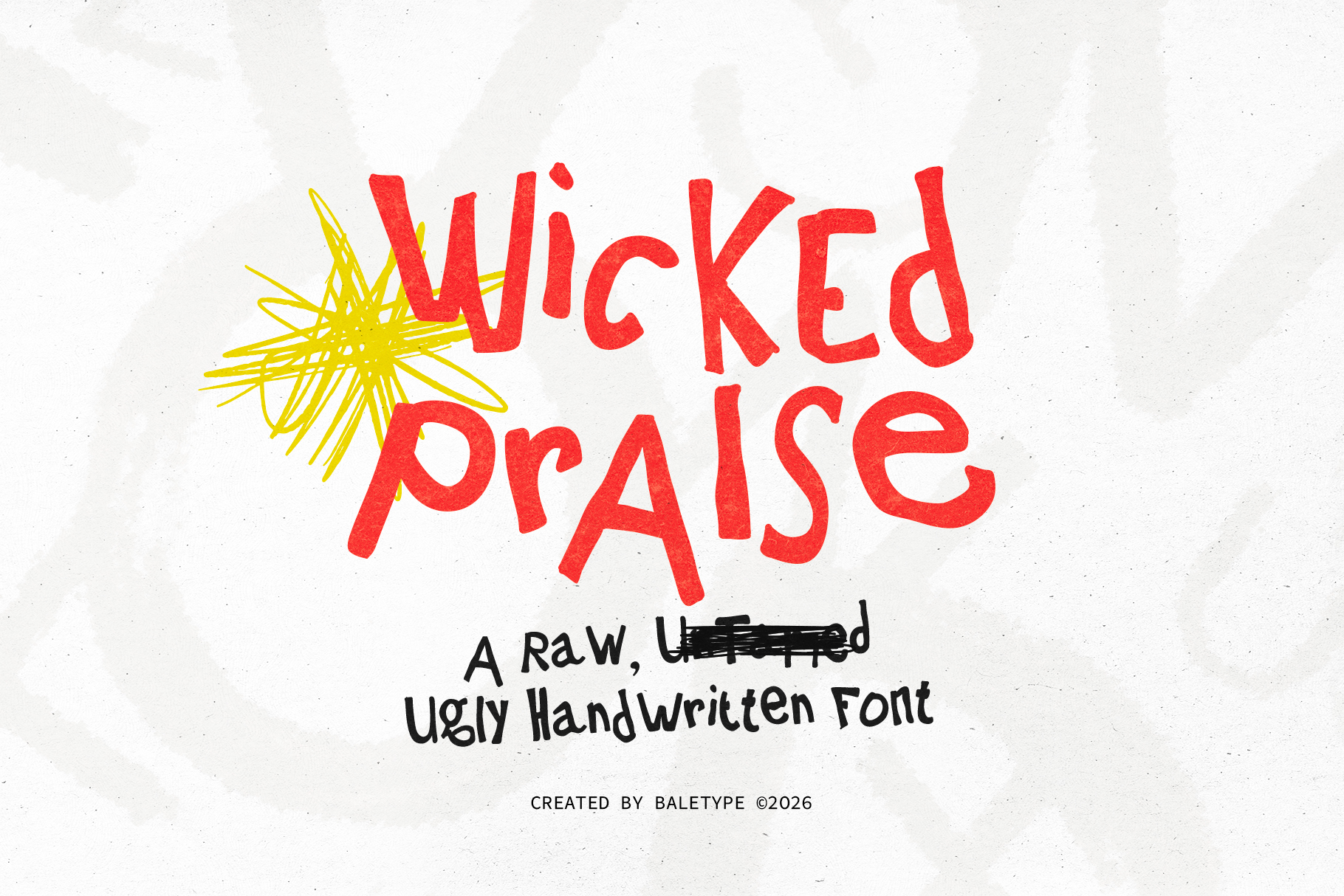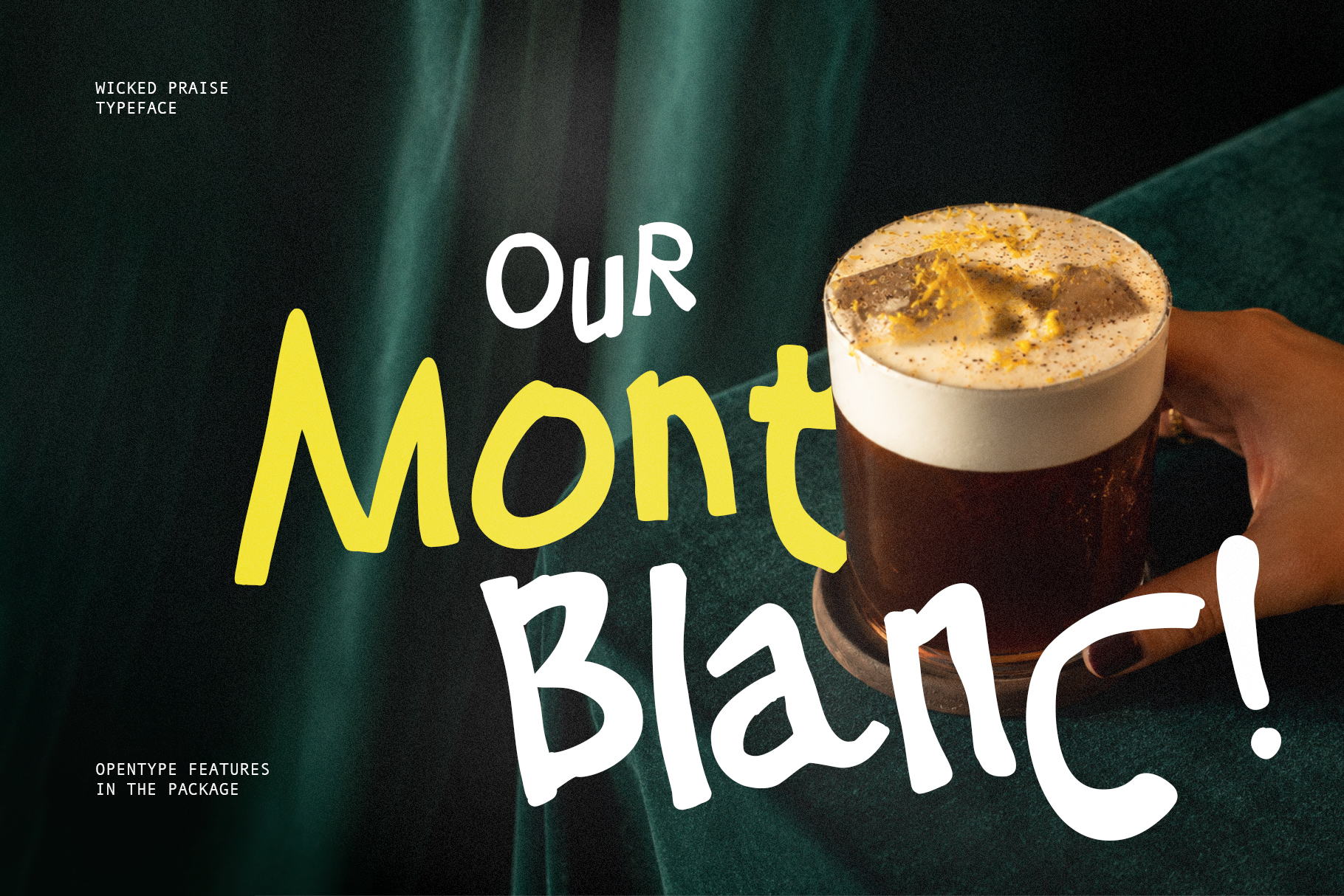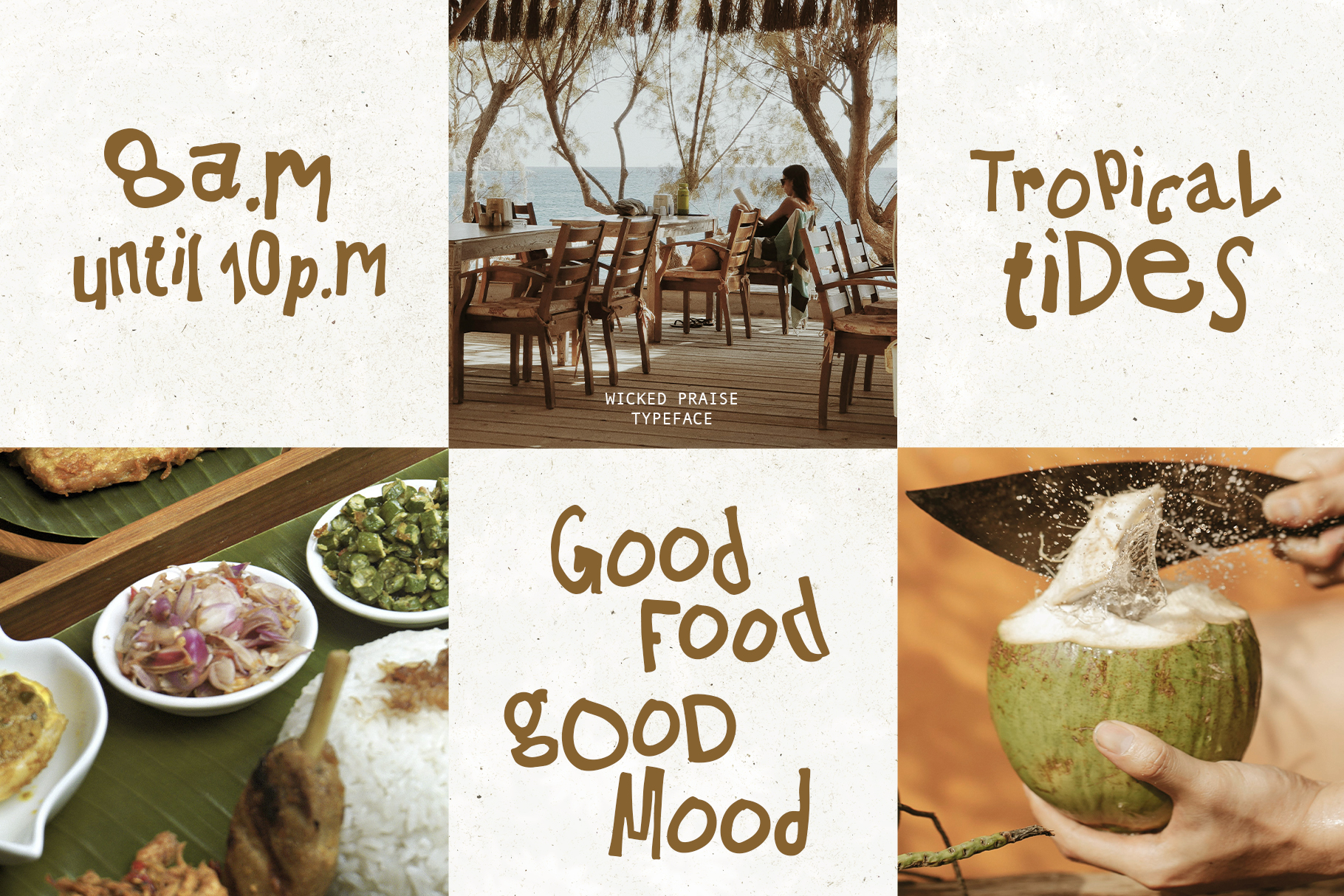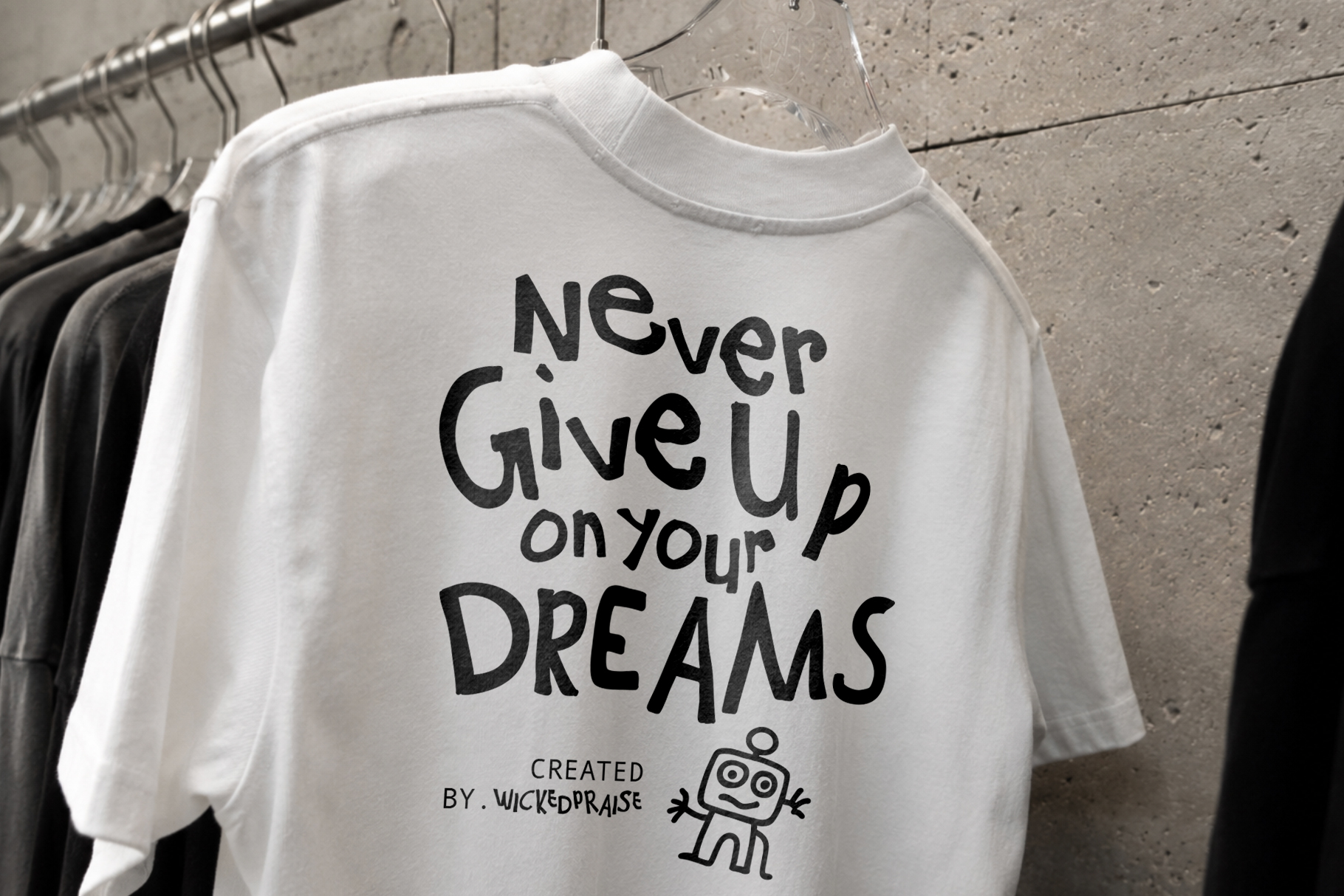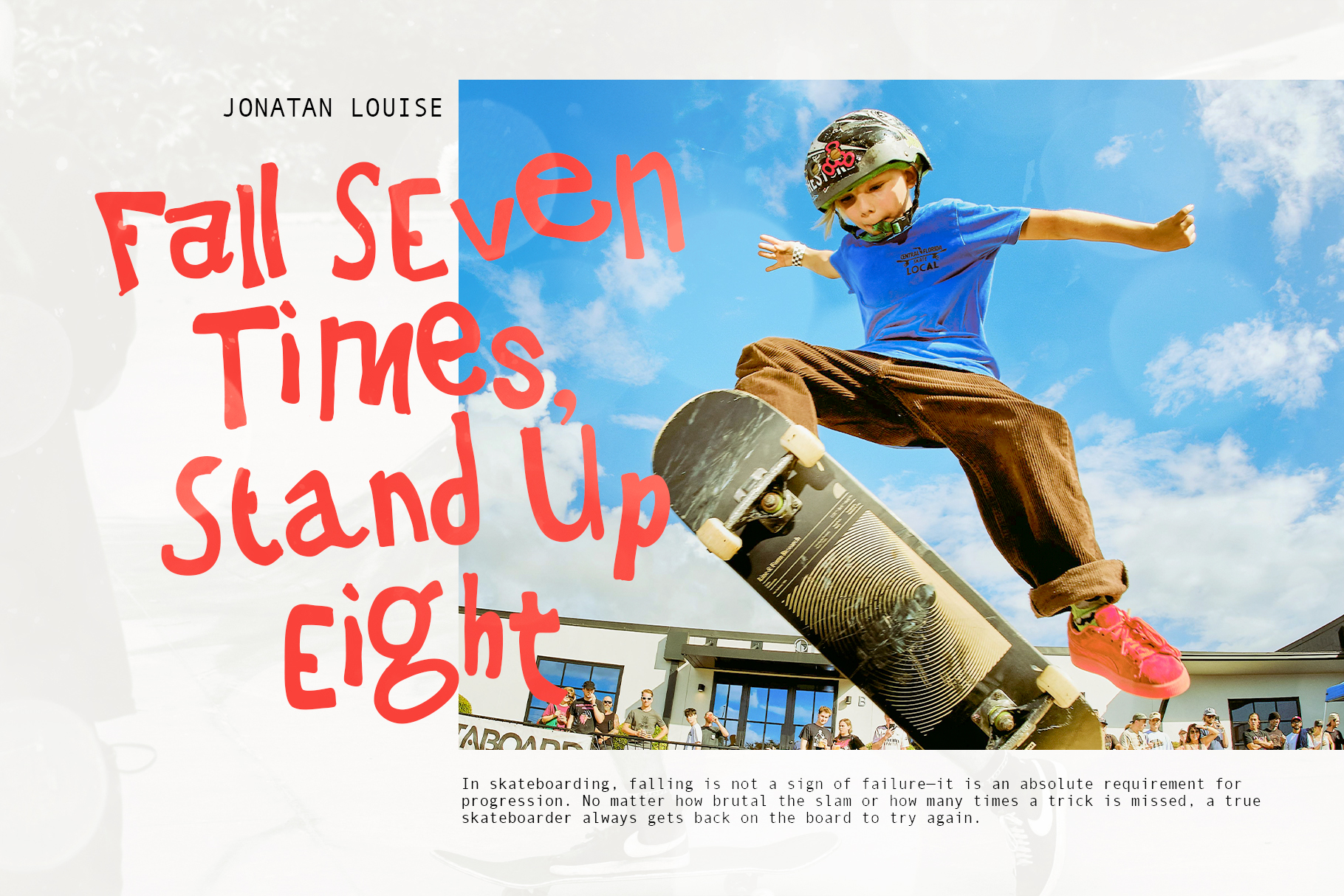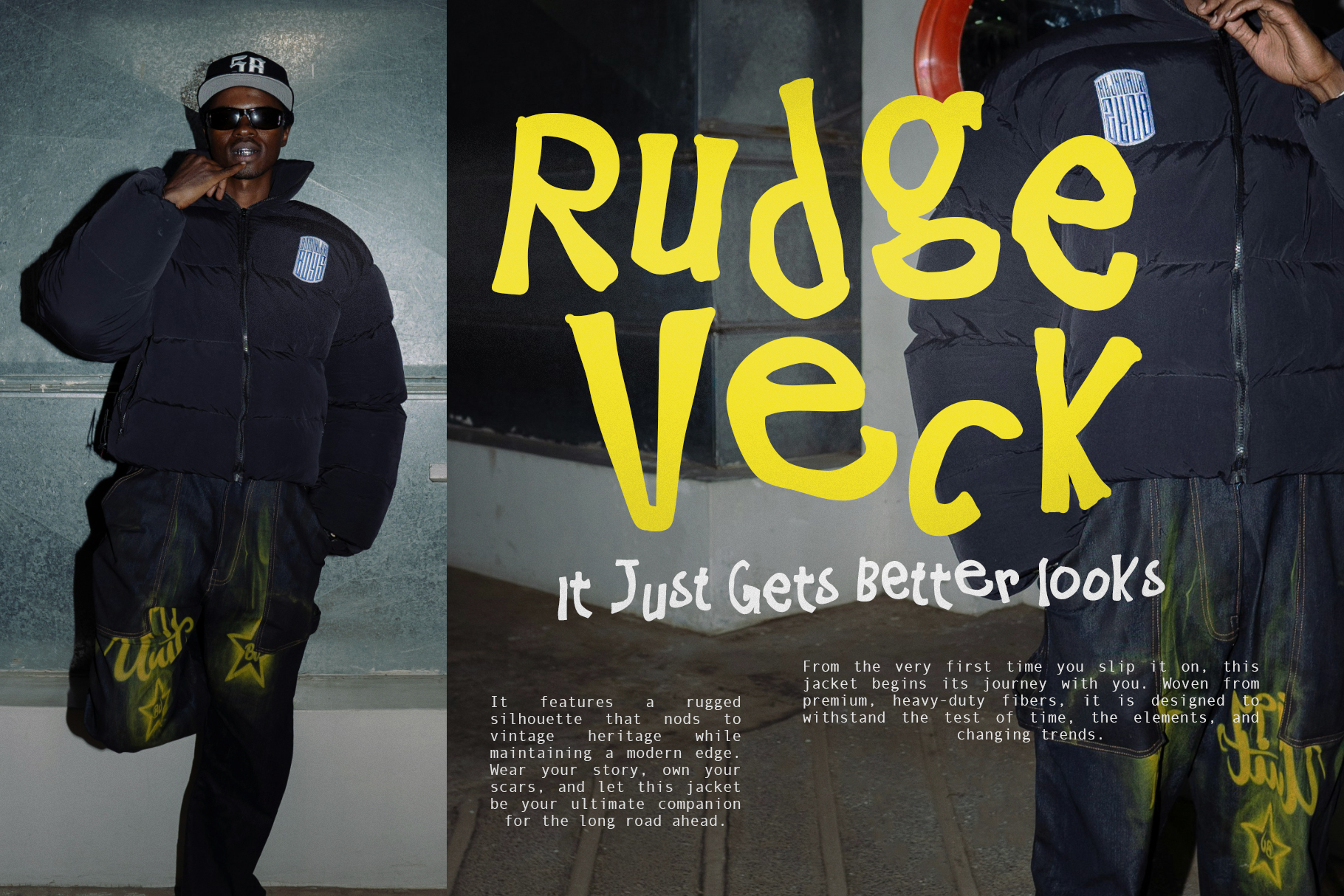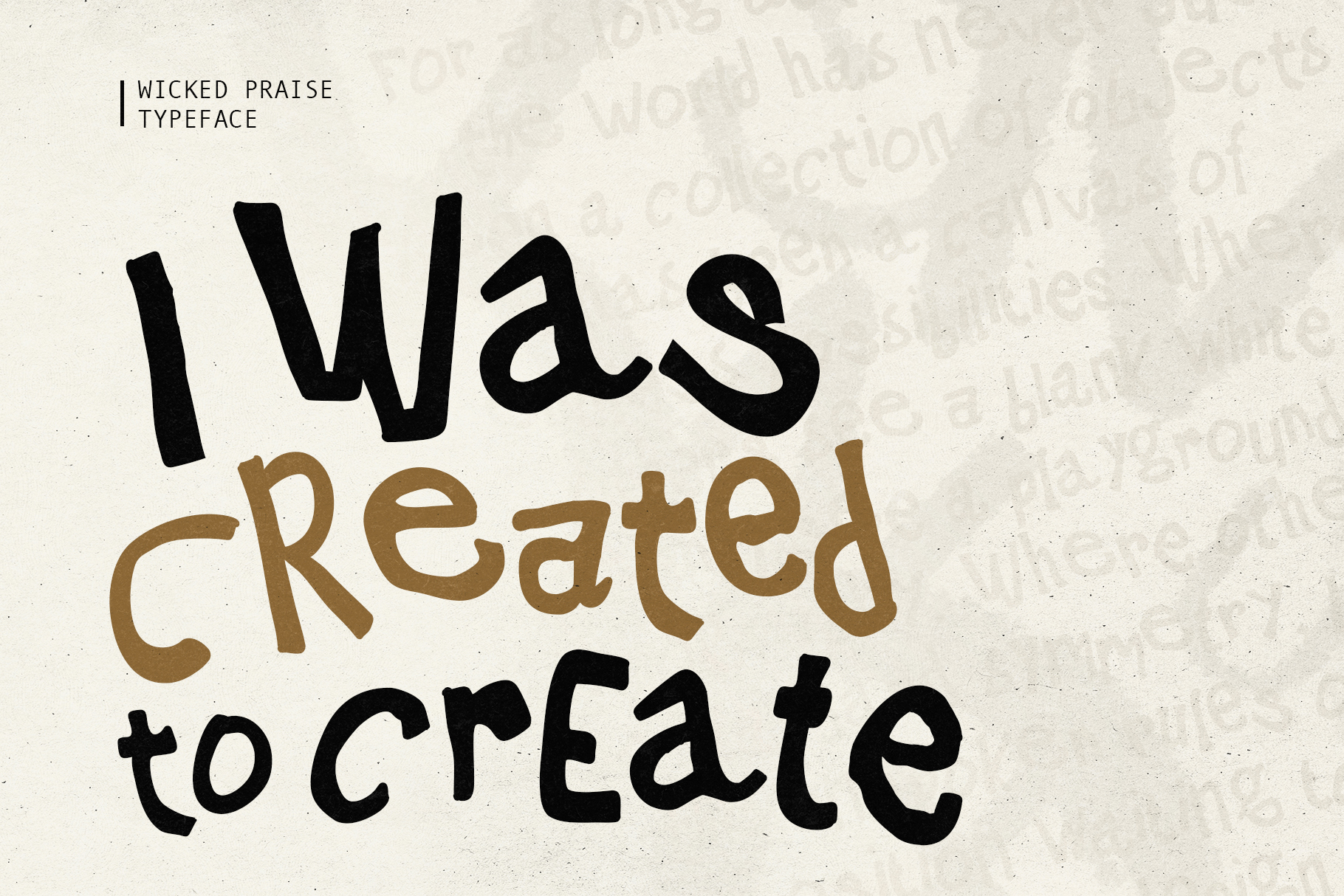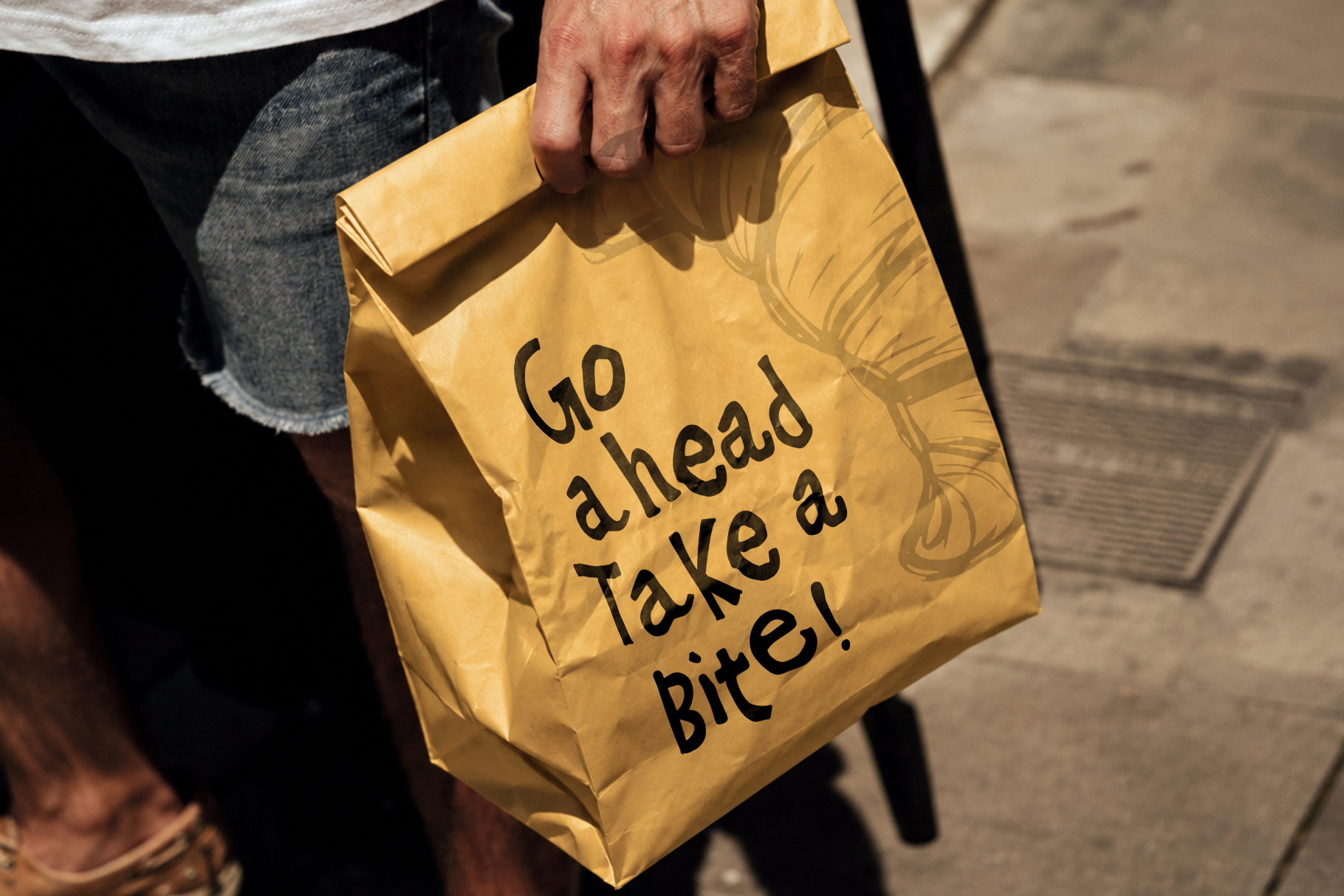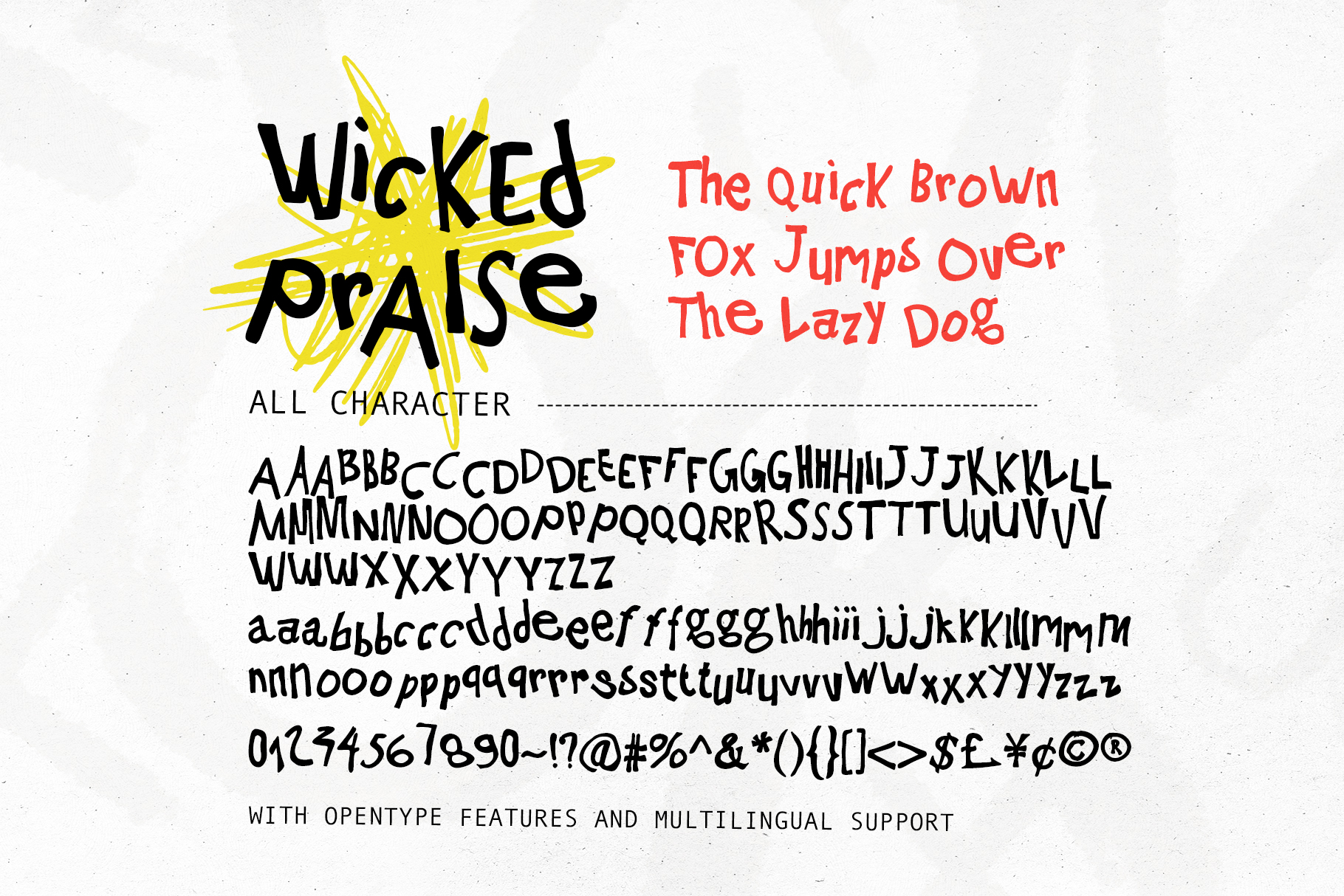
Wicked Praise is a dancing handwritten font with rough and raw looks. You can use this font for any purposes such as quotes, branding, street art, or any project that needs unique and stand out appearance. With opentype features, you can type any words and the alphabet will automatically change to make your design looks even more manually created. You can also use the uppercase and lowercase in the same word to make your design more dramatic. This font also support multi language.
Wicked Praise – Rough Ugly Font
Wicked Praise is a dancing handwritten font with rough and raw looks.